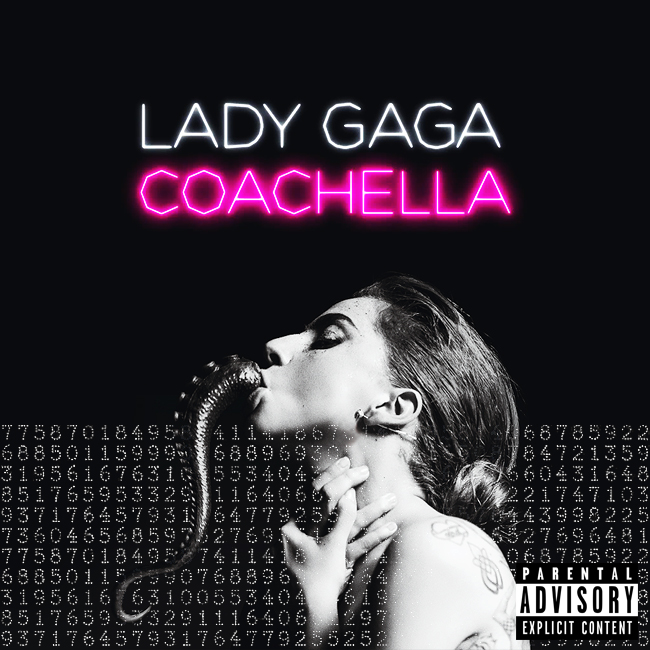
LADYGAGA10MONSTER 3,614 Posted January 17, 2024 Share Posted January 17, 2024 Hey does anyone have this still I wasn't on here when it was published DL - All fonts used by Lady Gaga in her career (Words EP - Joker 2) [99%] I would be very happy if someone had this Link to post Share on other sites More sharing options...
Cavadour 2,753 Posted January 17, 2024 Share Posted January 17, 2024 Just a little g00gl search shows JOKER 2 looks like a custom logo (easy to find some good res of it). But if you rly need the font, there's a designer called Alina, who 'specialize in creating fonts that are inspired by popular phenomena'. Alina created a textured font called JOKELYN 'inspired by the chaotic genius of Gotham’s infamous Joker from the iconic Batman movies'. ($2.00 USD) I didn't find a free version of this font... Late to the party but I got a diamond heart Link to post Share on other sites More sharing options...
LADYGAGA10MONSTER 3,614 Posted January 18, 2024 Author Share Posted January 18, 2024 7 hours ago, Cavadour said: Just a little g00gl search shows JOKER 2 looks like a custom logo (easy to find some good res of it). But if you rly need the font, there's a designer called Alina, who 'specialize in creating fonts that are inspired by popular phenomena'. Alina created a textured font called JOKELYN 'inspired by the chaotic genius of Gotham’s infamous Joker from the iconic Batman movies'. ($2.00 USD) I didn't find a free version of this font... Hey do you know what the coachella font is Link to post Share on other sites More sharing options...
Cavadour 2,753 Posted January 18, 2024 Share Posted January 18, 2024 Most probably a custom made logo. Usually when a font resource is involved, you can see it in various texts and sizes spread around the ads and so on. Someone else on GGD did a custom cover some years ago and said the font was taken from the video. So no proper .otf resource here, I'm afraid. Late to the party but I got a diamond heart Link to post Share on other sites More sharing options...